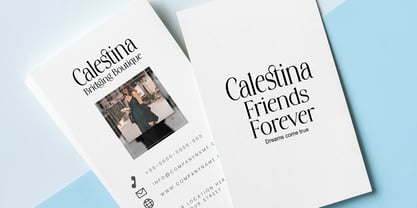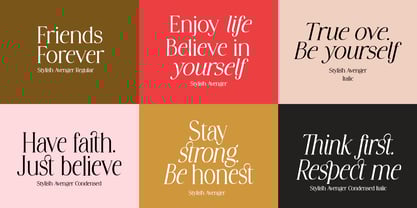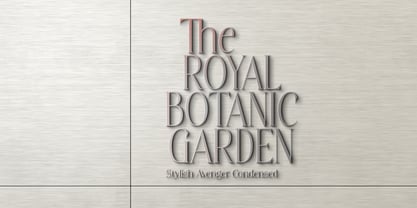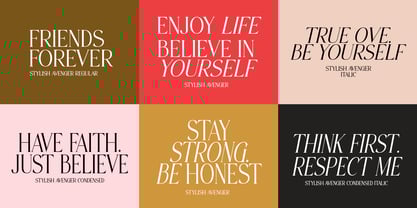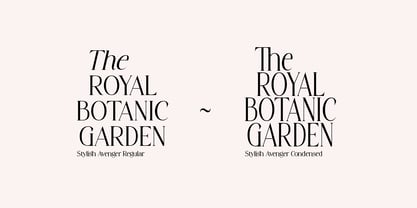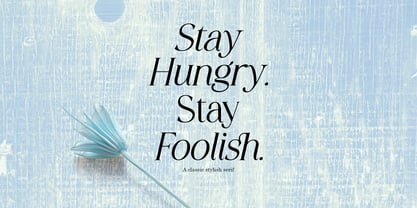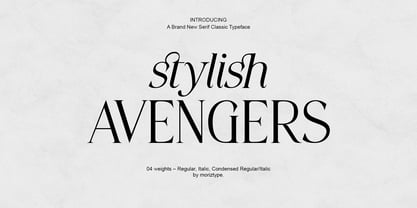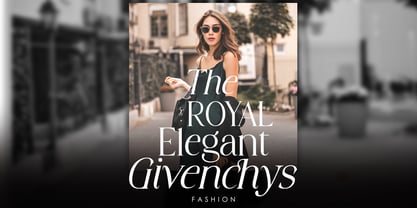
Stylish Avenger
by moriztype
The Stylish Avenger Font Family was designed by Muriza Moriztype and published by moriztype. Stylish Avenger contains 4 styles.
Introducing Stylish Avenger – a brand new serif with all the clean lines, tight curves, and trendy minimalist vibes!
Stylish Avenger is a stunningly crisp upper and lowercase typeface that looks incredible in both large settings as a display text (think big headers, pretty quotes, calls to action, etc.).
The Stylish Avenger family includes:
- 04 weights – Regular, Italic, Condensed Regular/Italic